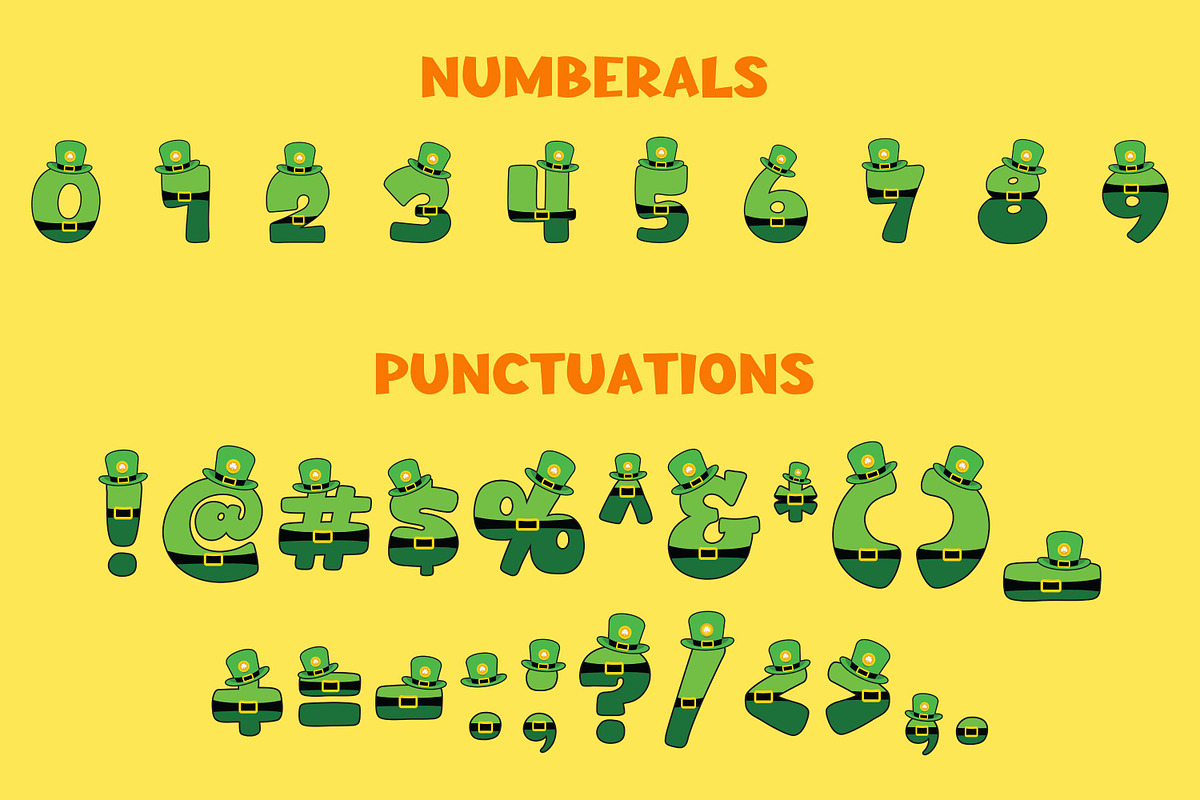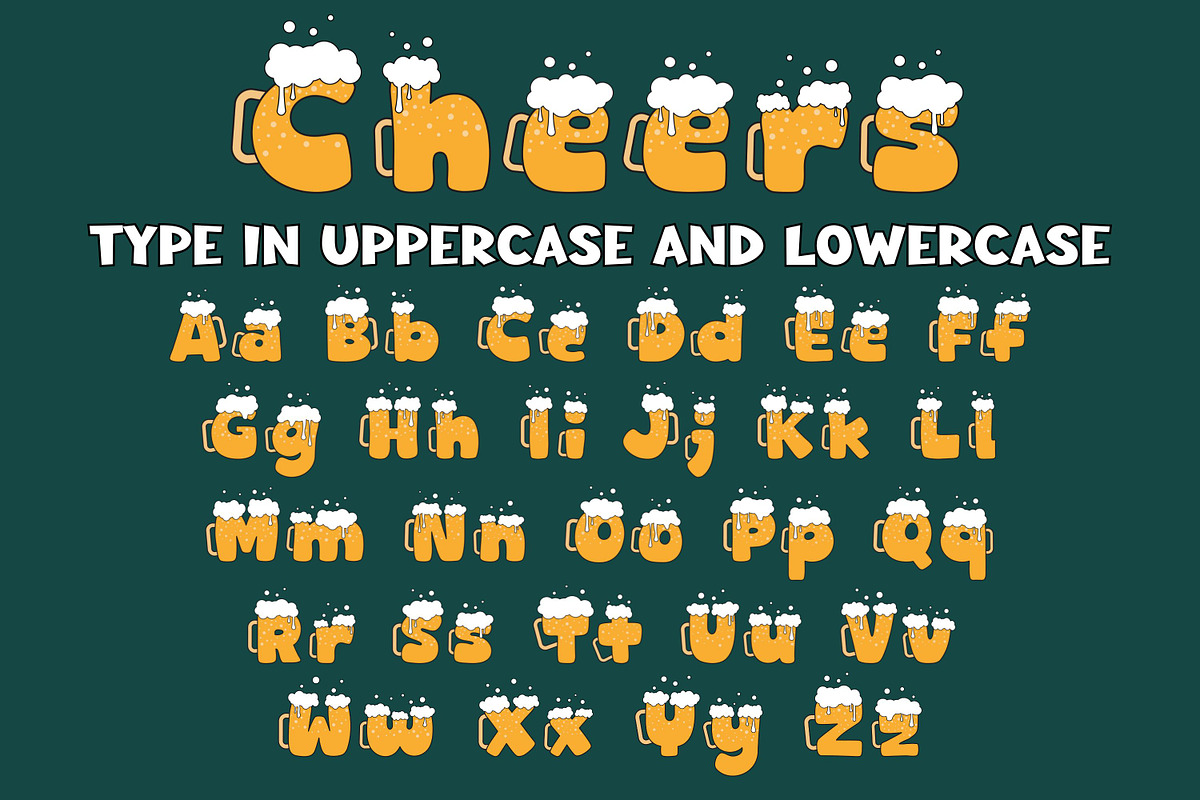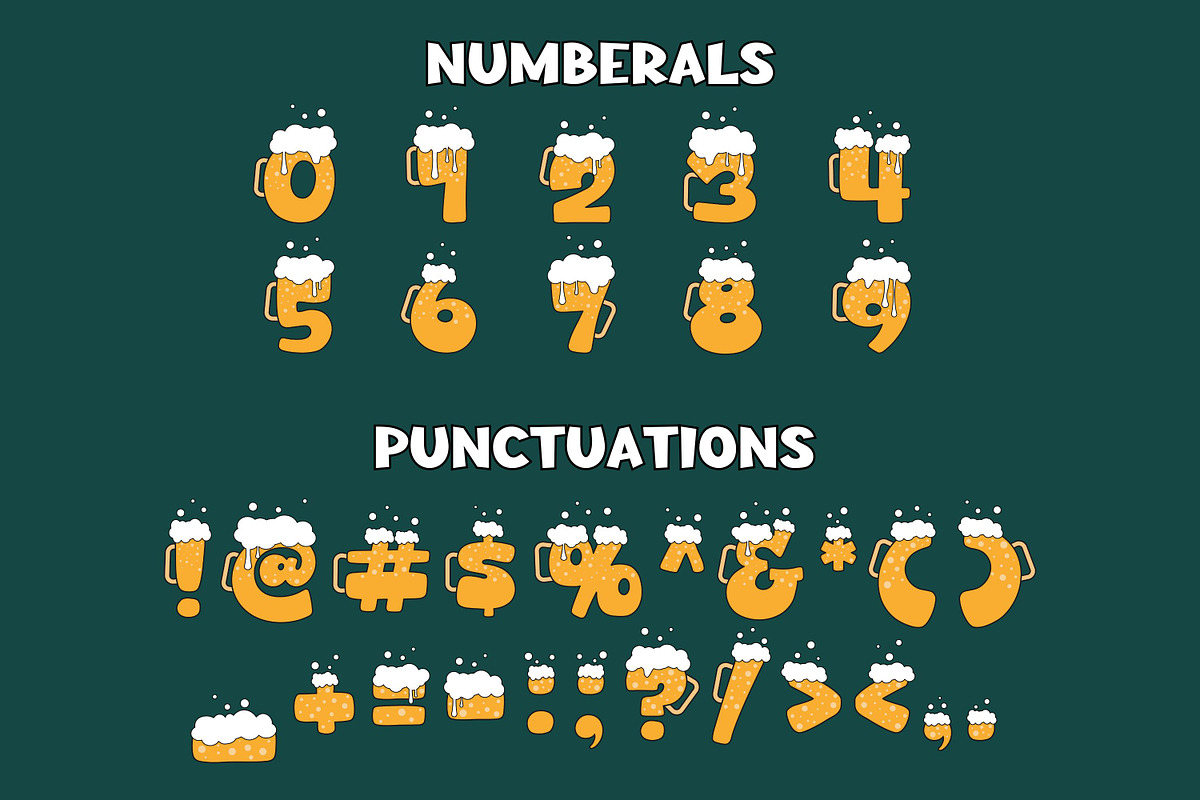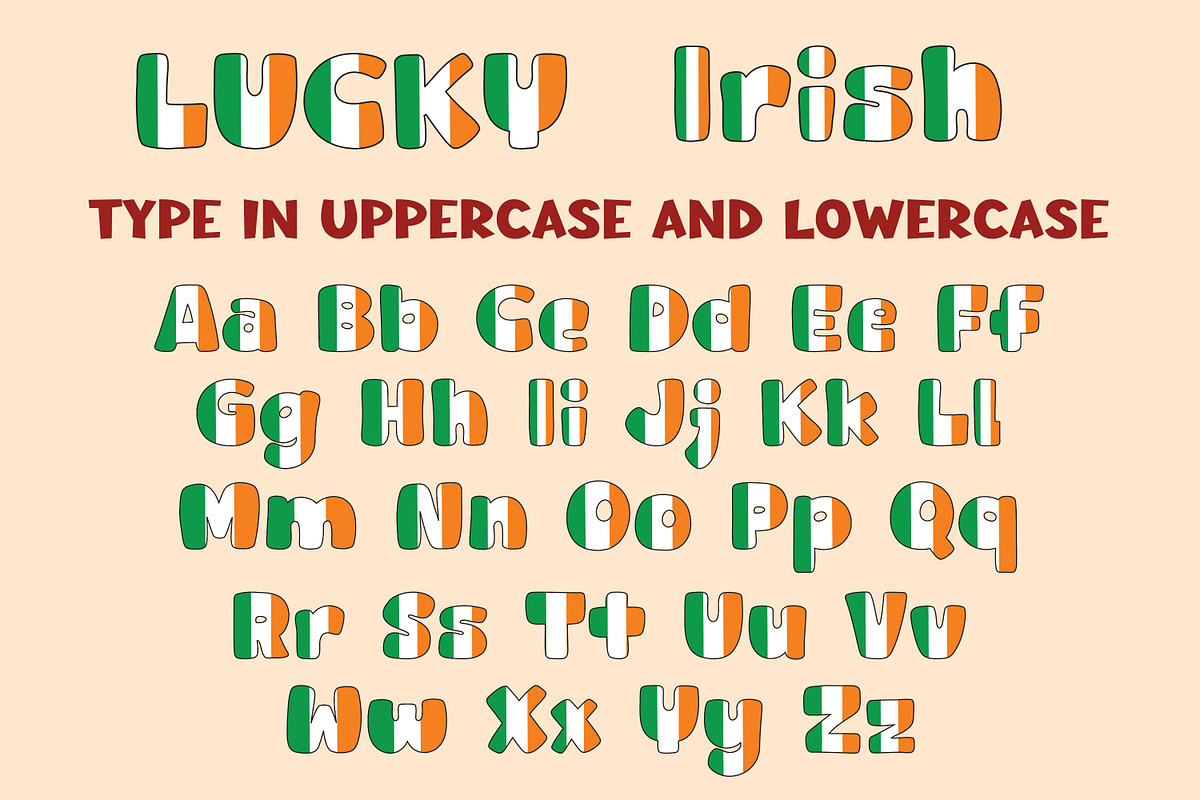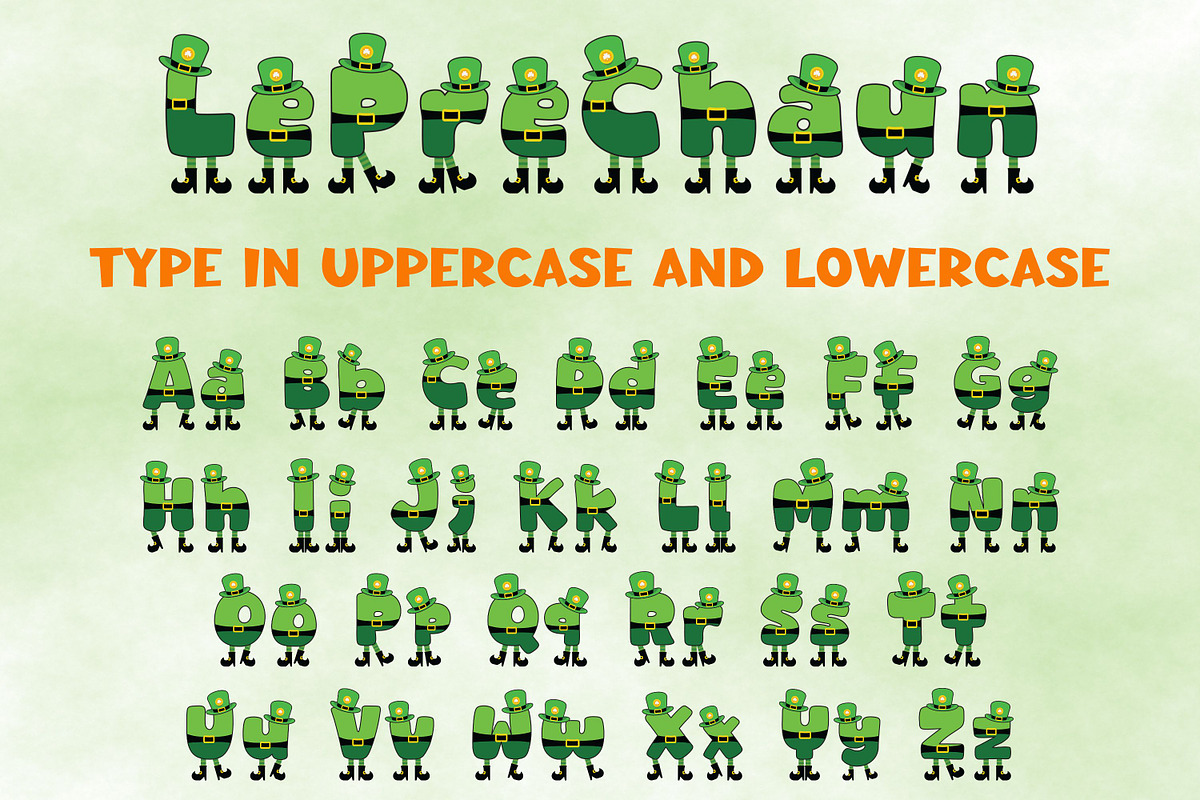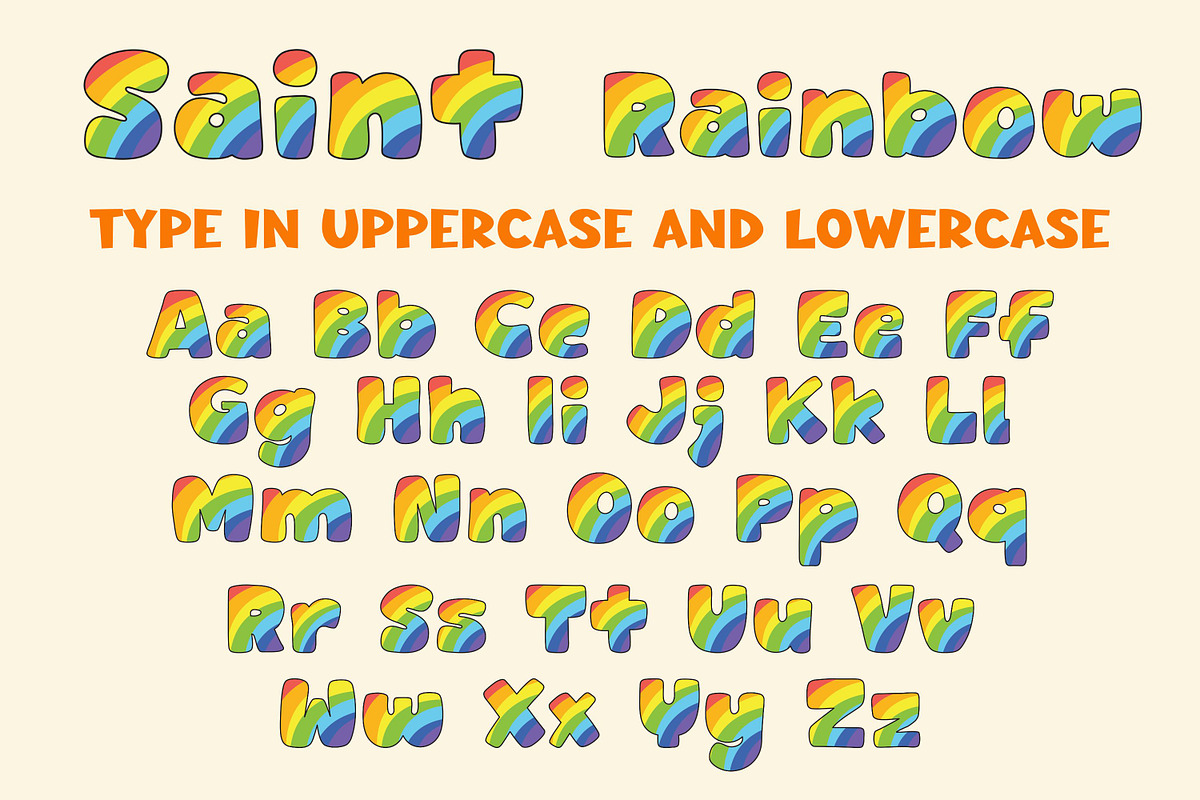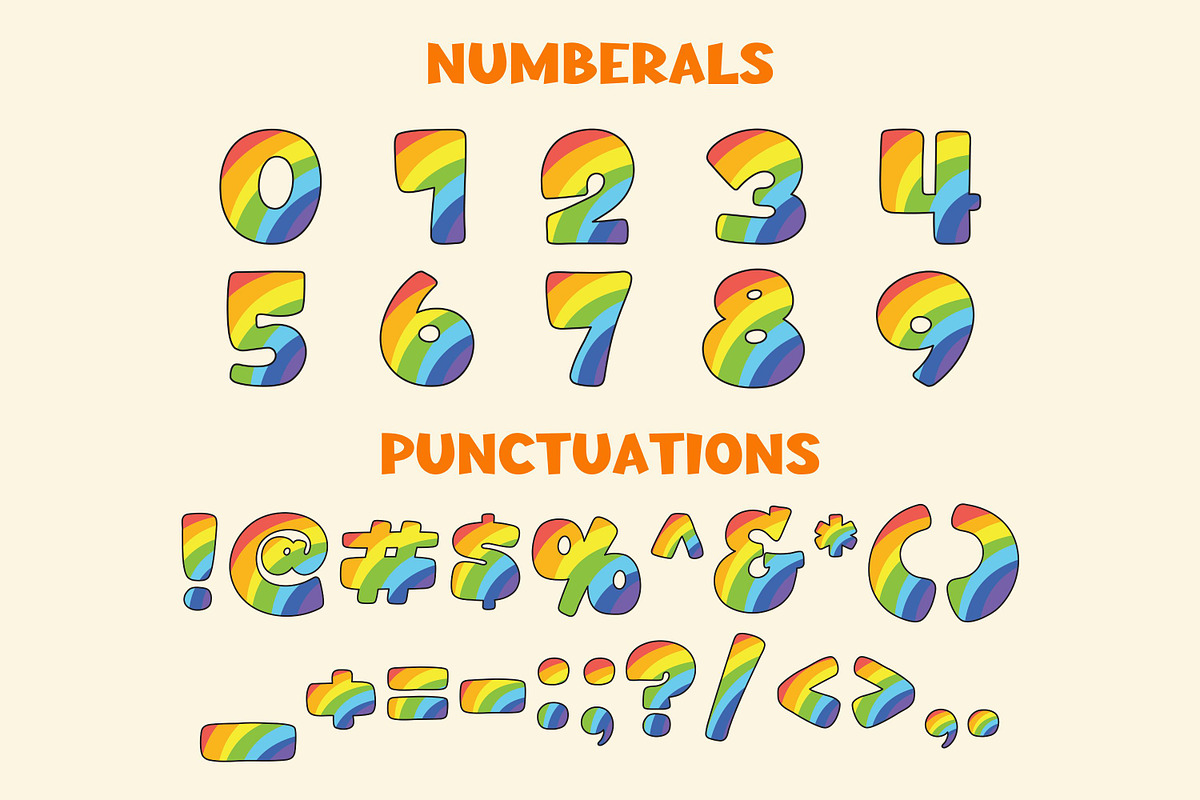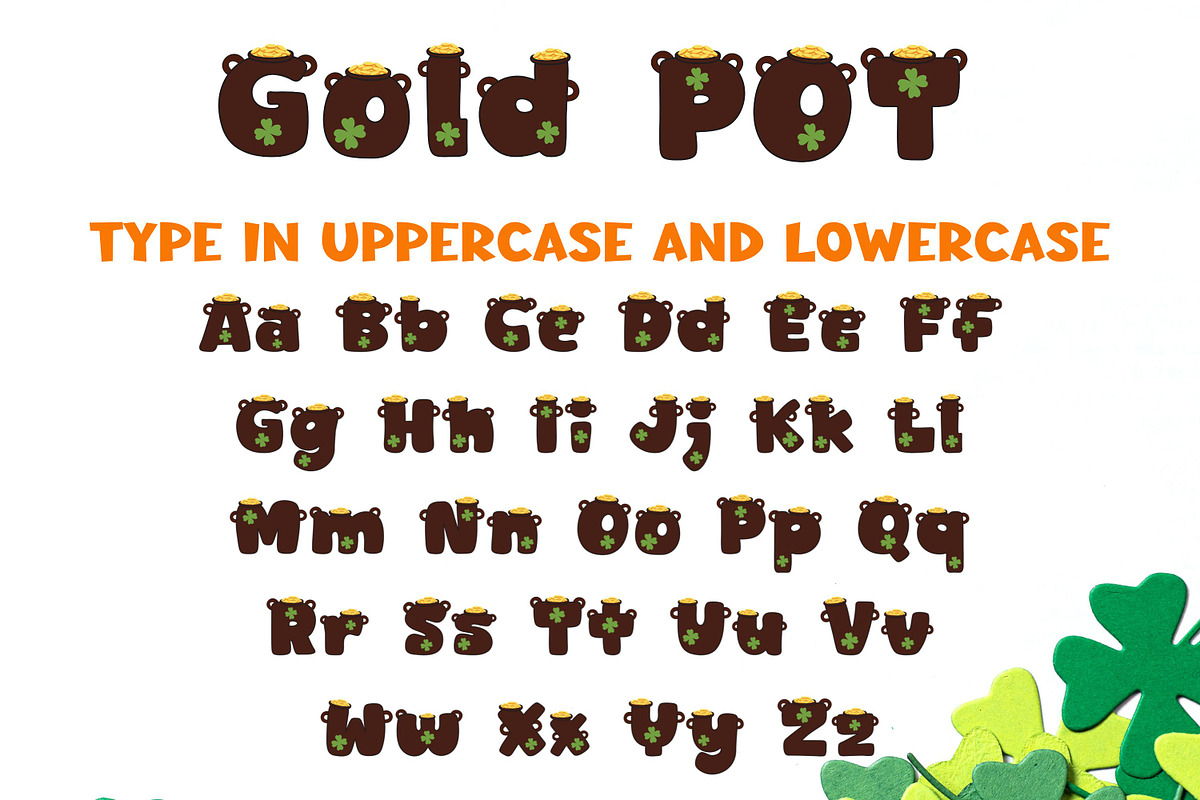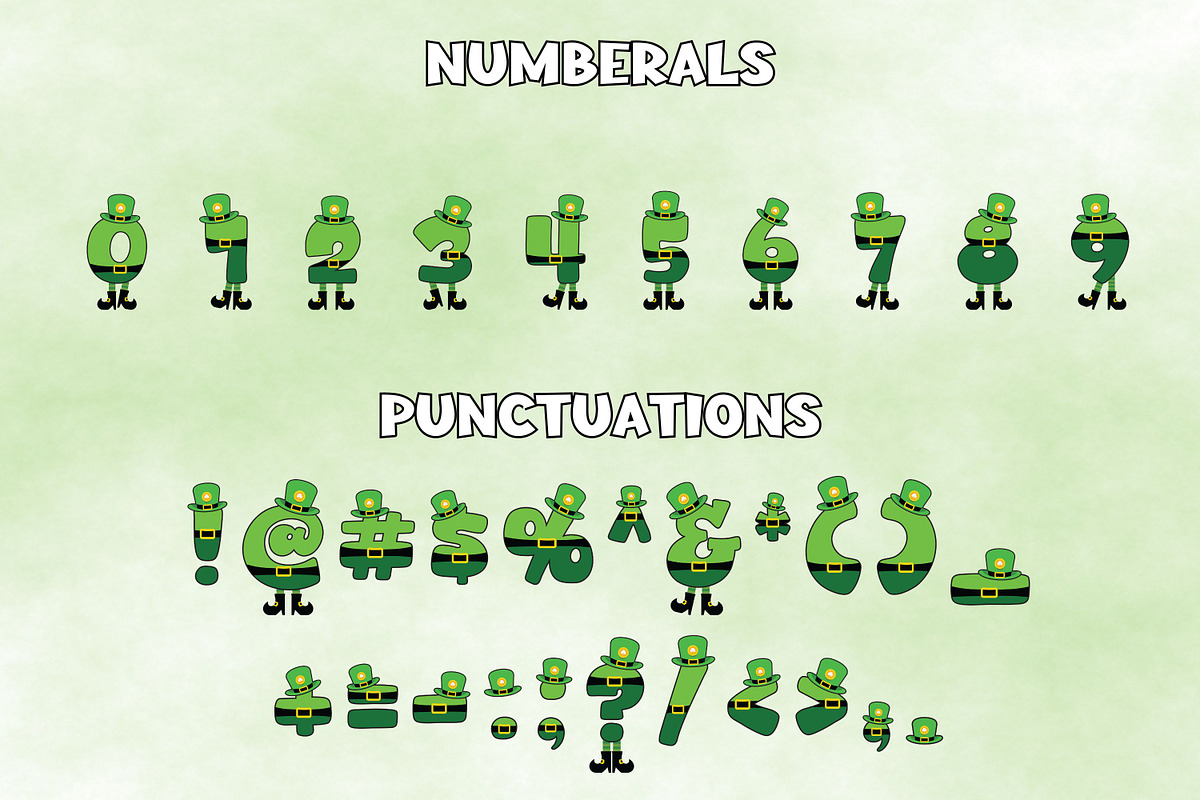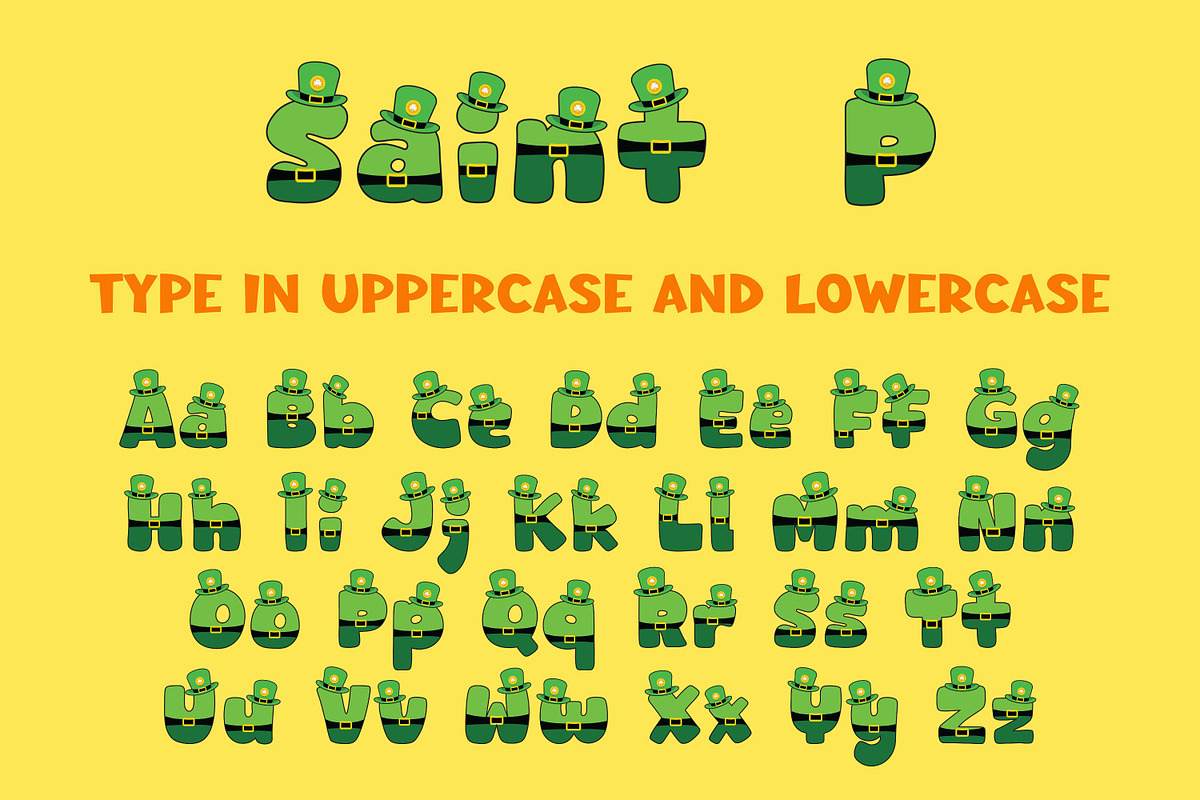
Happy St. Patrick - 6 Color Fonts
Introducing Happy St. Patrick font, a vivid and playful color font that brings a touch of enchantment to every St. Patrick’s Day-themed design. Its captivating character effortlessly melds with t-shirt designs, digital imprints, craft creations, decorative cards, and extensive projects.